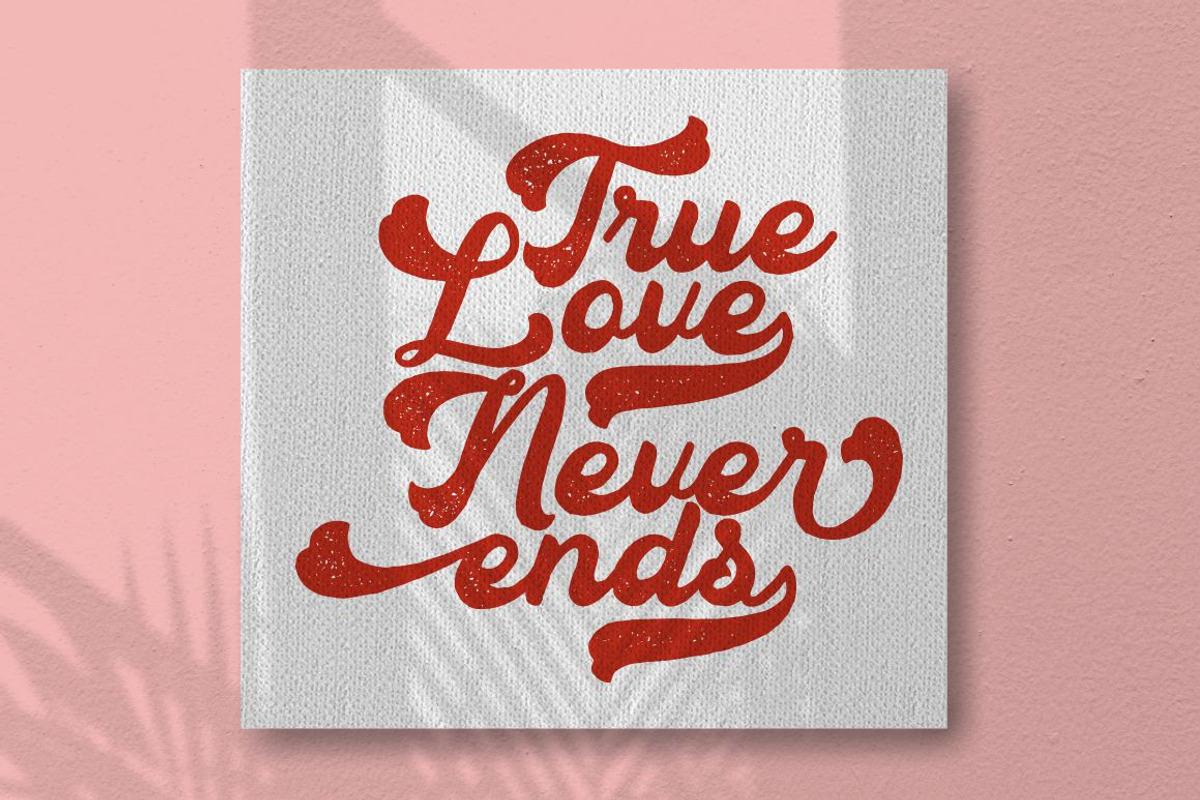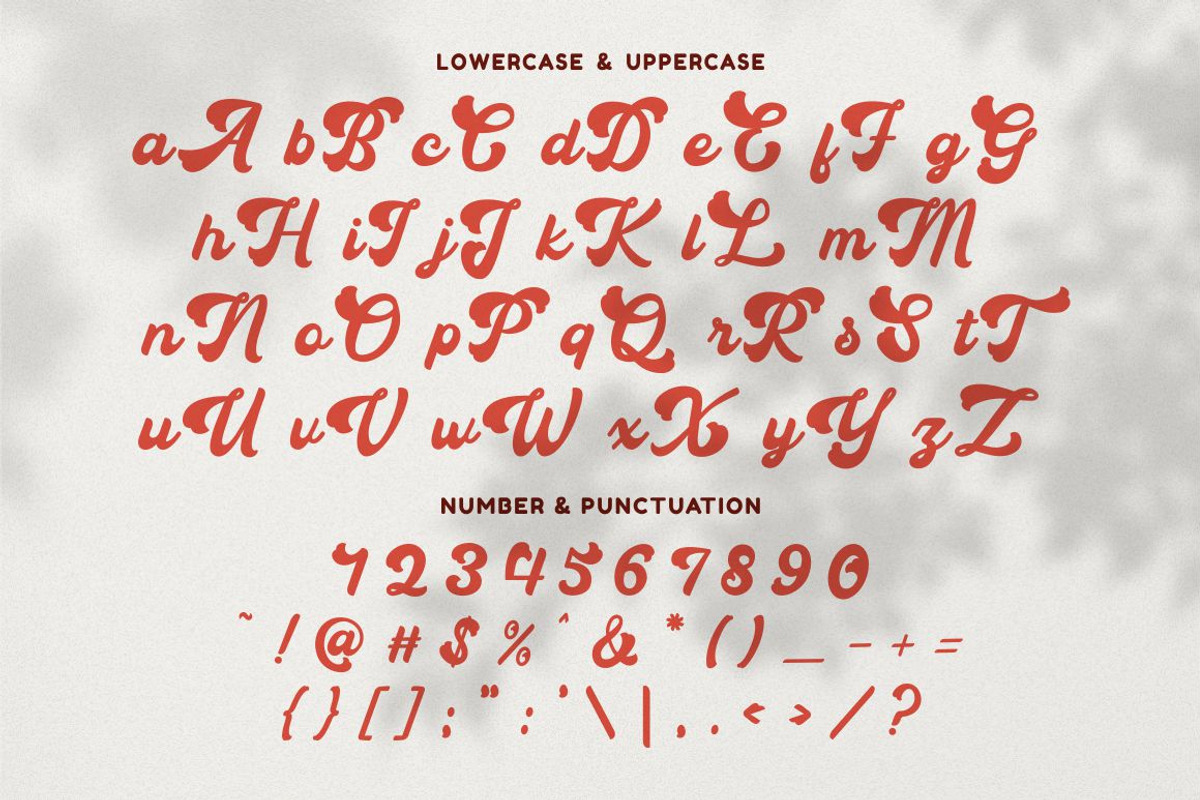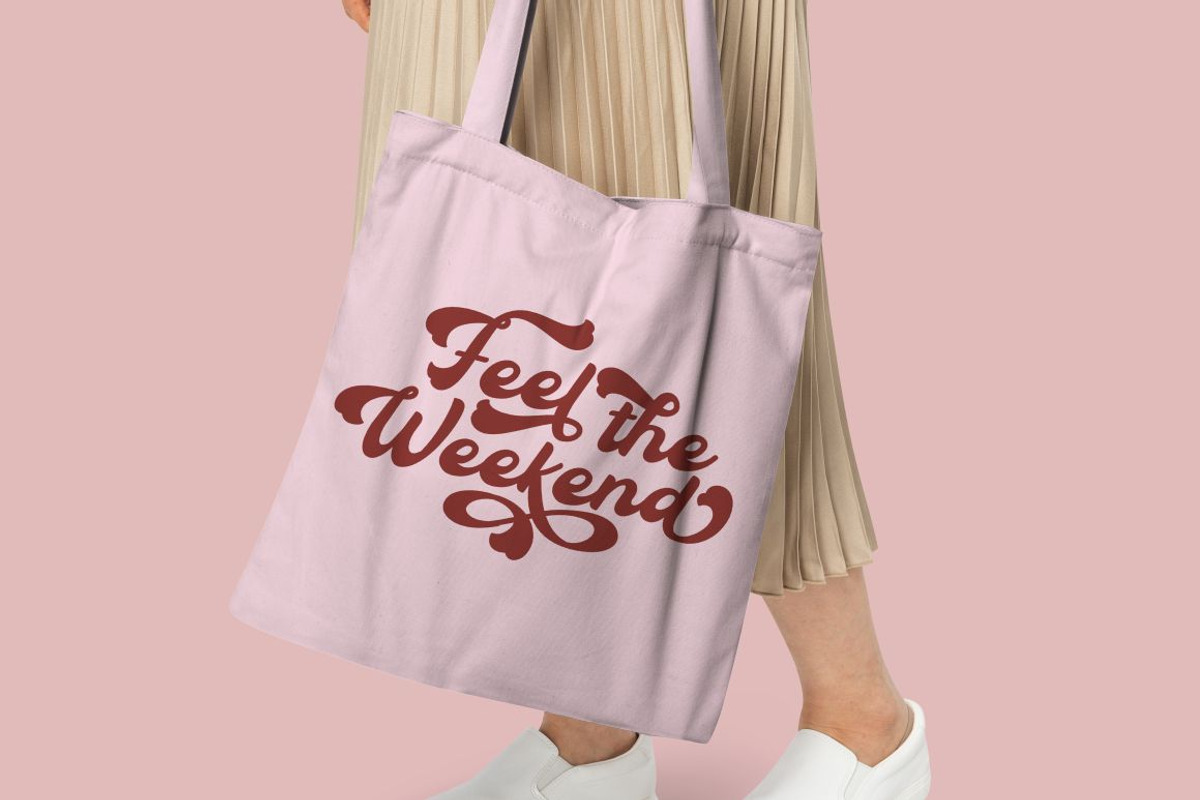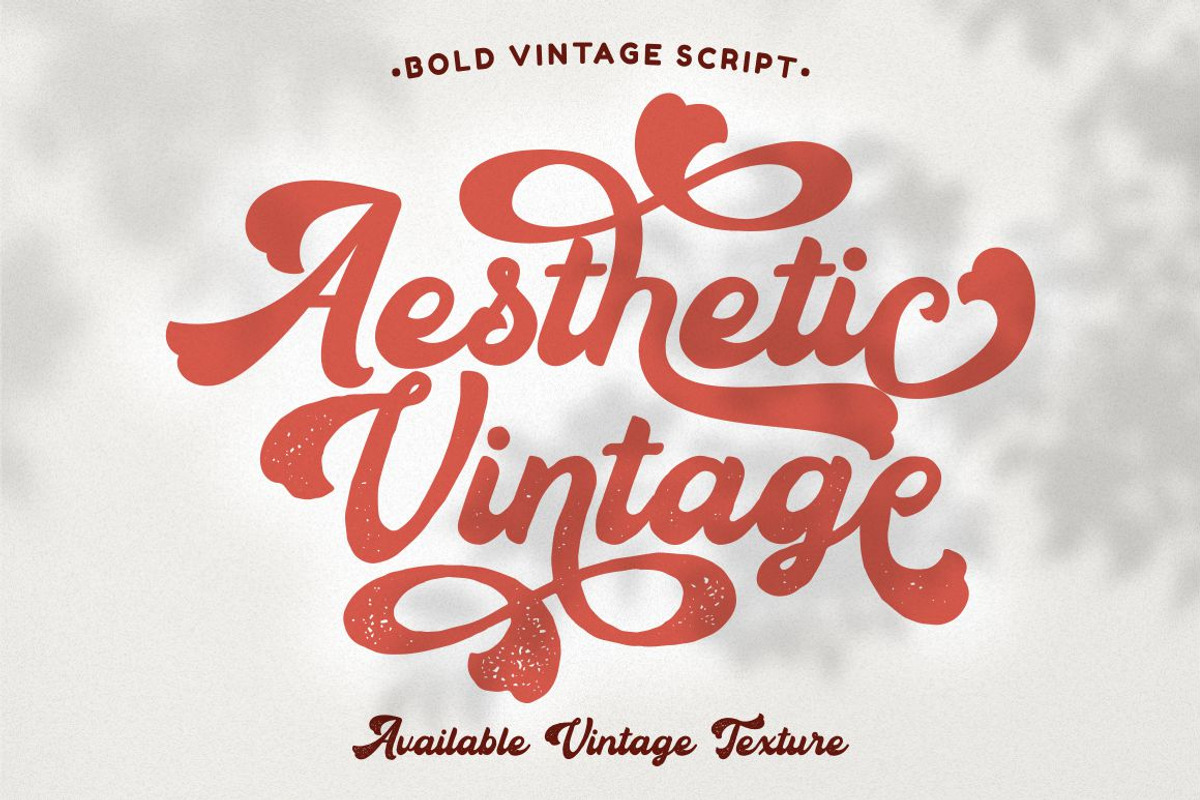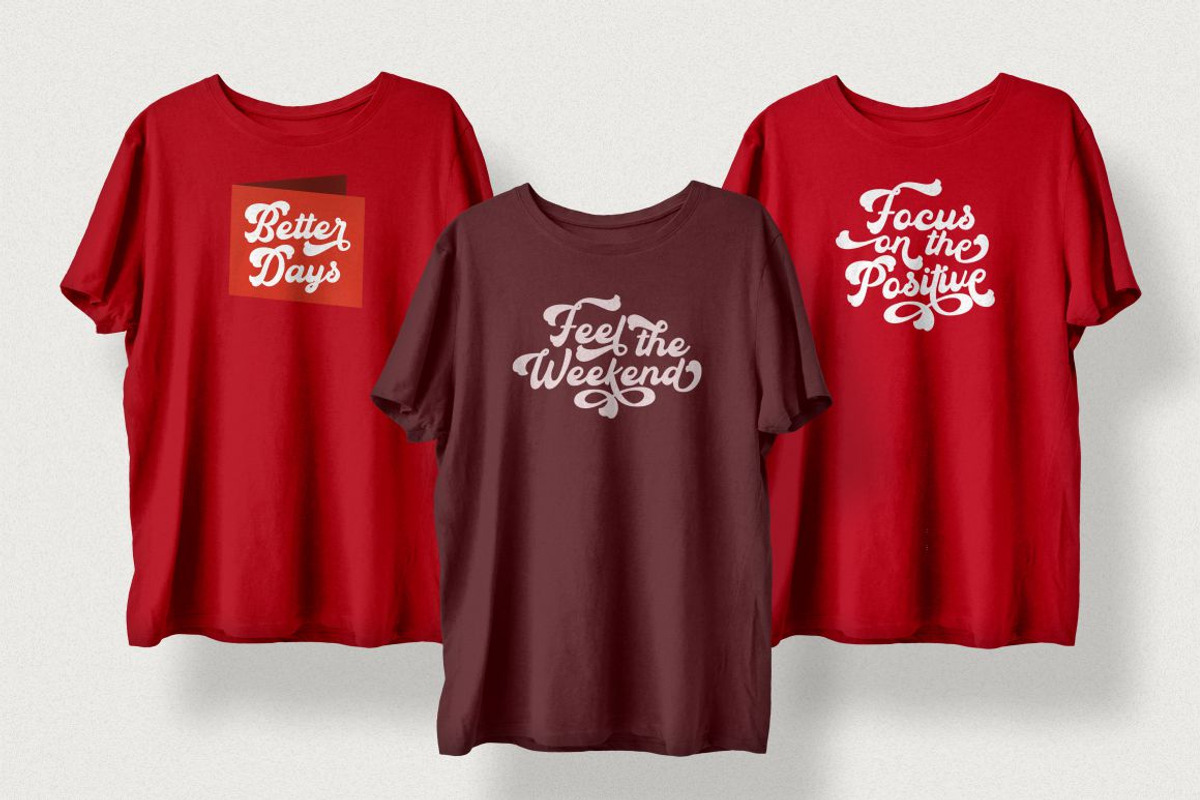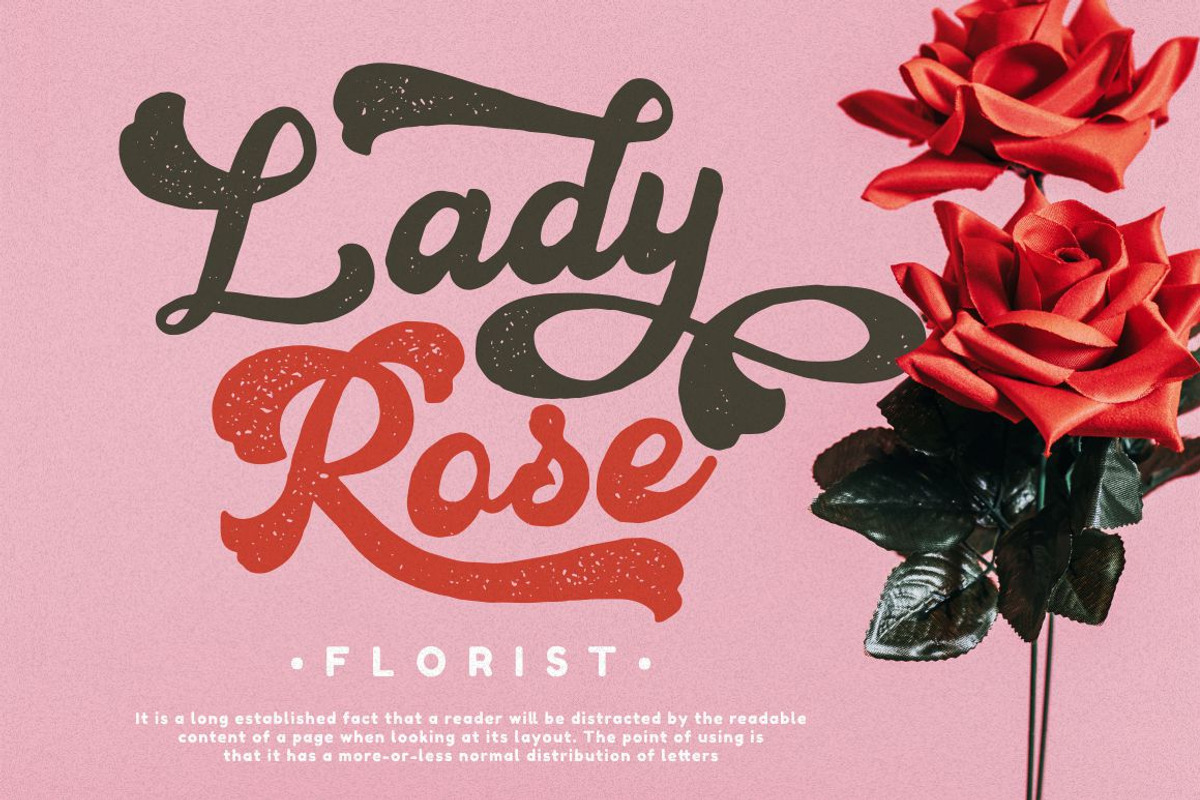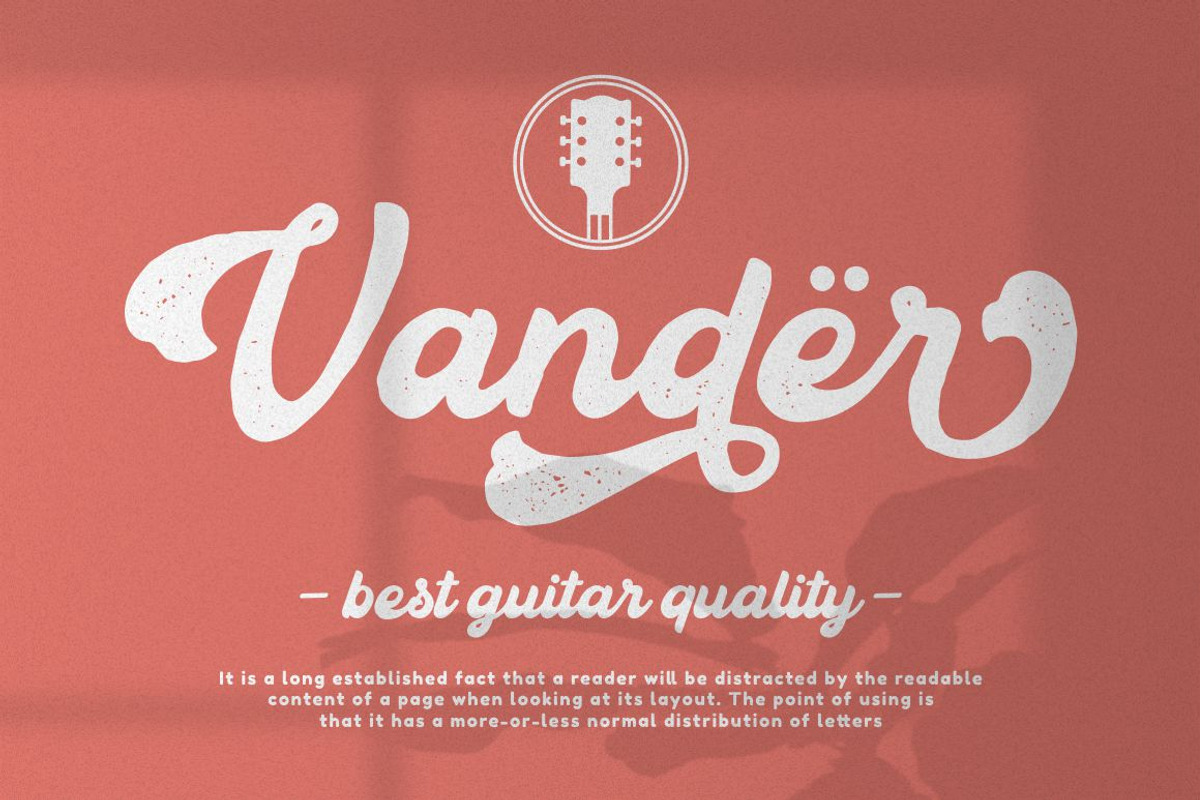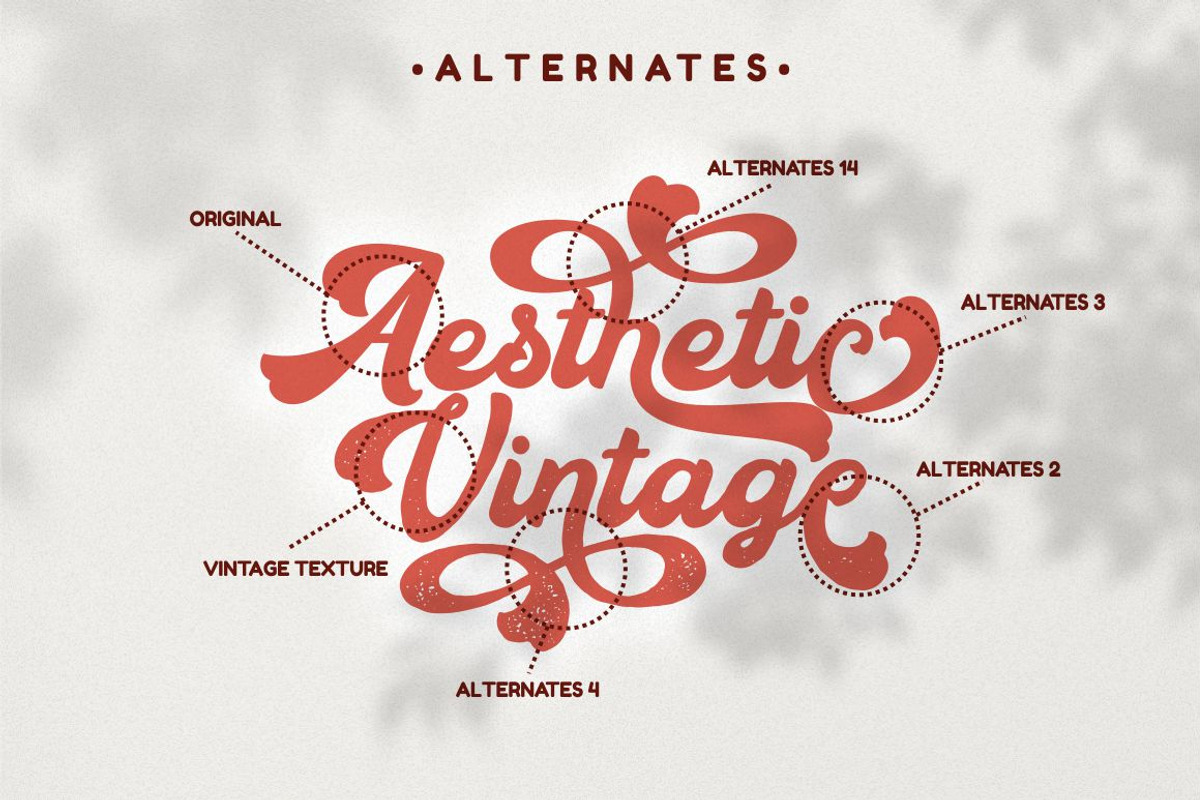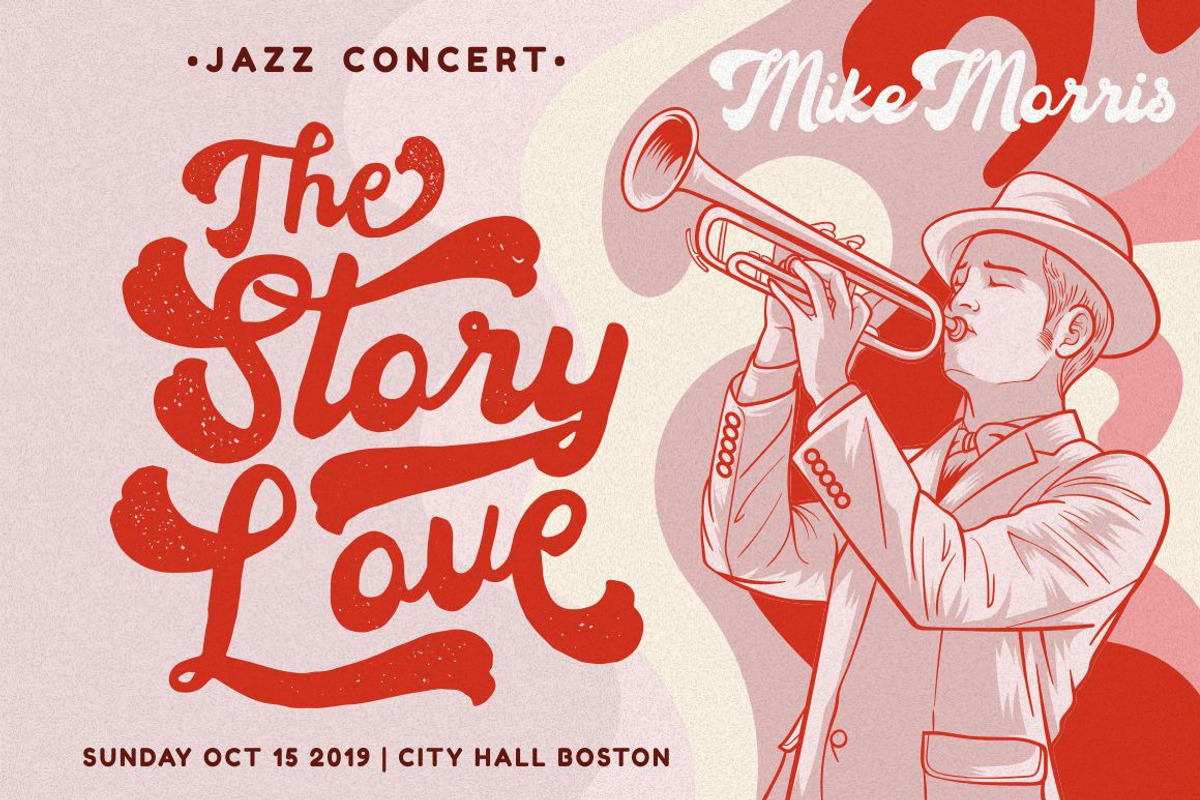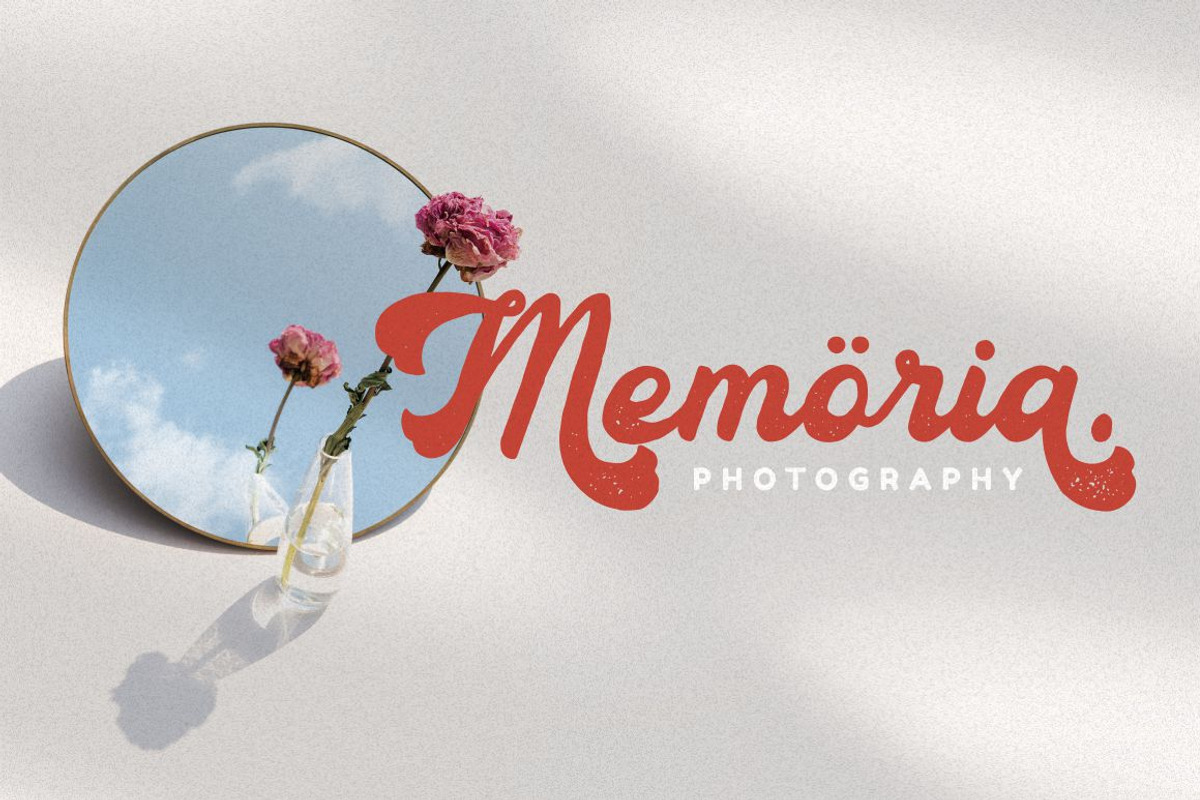
Aesthetic Vintage - Bold Vintage
Aesthetic Vintage
Aesthetic Vintage is a bold vintage script font. In this font I try to combine vintage with luxury/aesthetics. So that this font can be used in various projects with retro/vintage and luxury themes. Such as logos, branding, posters, packaging, book covers, clothes/apparel, quotes, titles and others. This font come with clean and rough font version.
Come with Opentype feature with a lot of alternates, its help you to make great lettering. This font is also support multi language.
Comes with feature :
- Opentype (Alternates And Ligatures)
- Number, Punctuation And Symbols
- Multilanguage Support.